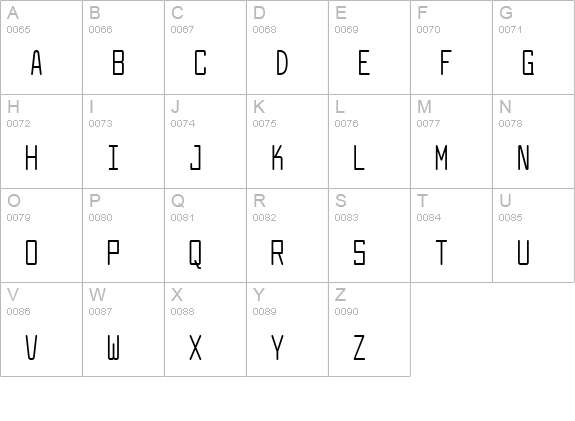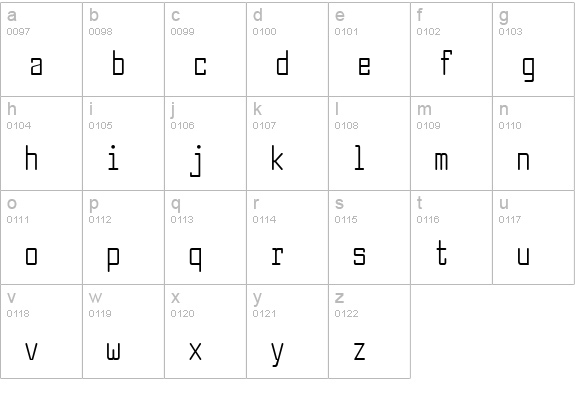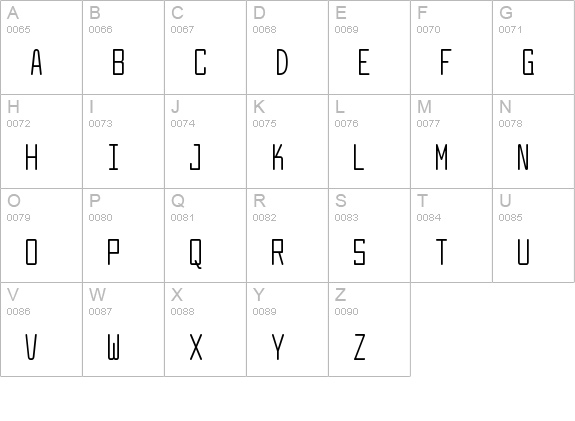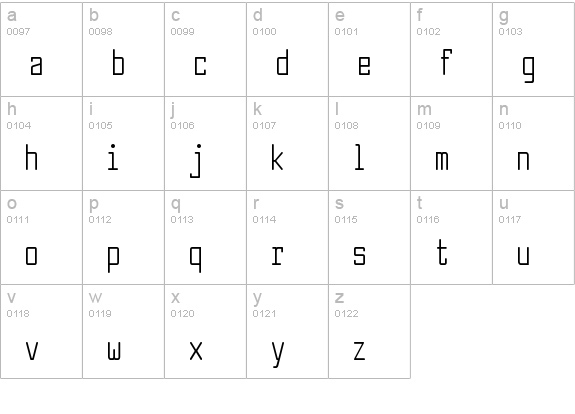
Larabiefont Compressed is a distinctive, condensed-width variant in the Larabiefont typeface family \xE2\x80\x94 well suited to design and typography projects.
Larabiefont Compressed is a sleek and modern font that exudes sophistication and style. With its condensed letterforms and clean lines, this typeface is perfect for creating a polished and professional look in your designs. The font is versatile and can be used for a wide range of projects, from branding to editorial design. The best part? Larabiefont Compressed is available for free download at FontsMarket.com, making it accessible to designers of all levels. Whether you're working on a personal project or a client's work, this font is sure to elevate your design and leave a lasting impression. Don't miss out on the opportunity to add this stunning font to your collection today!